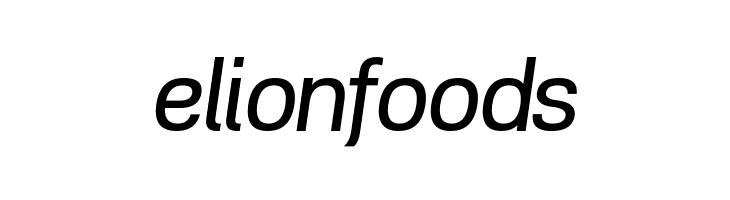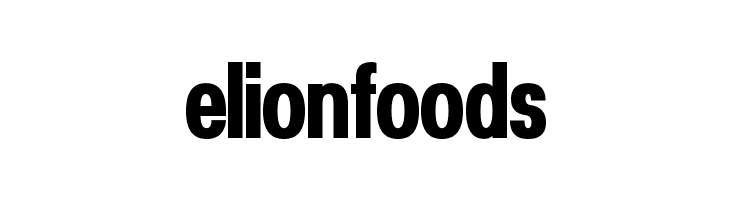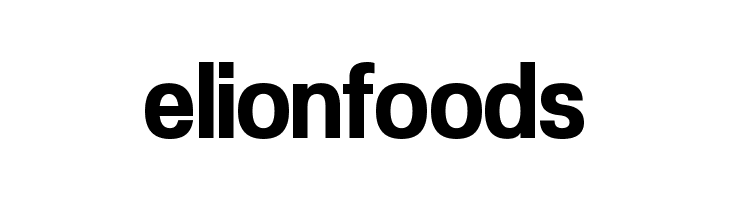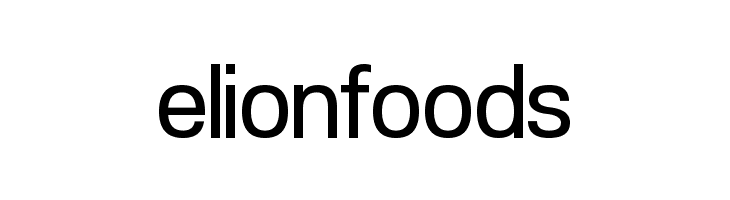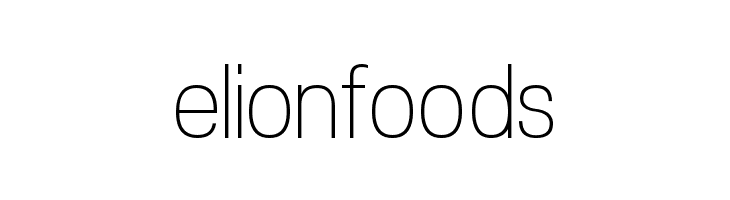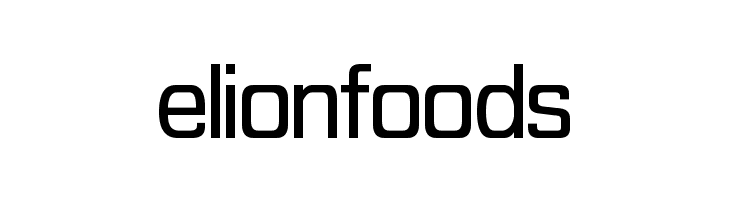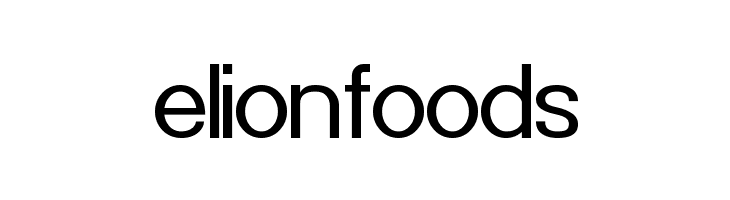
A modern, sans-serif typeface with clean lines and balanced proportions.
A modern, italic sans-serif font with clean lines and balanced proportions.
A bold, condensed sans-serif font with a modern and professional look.
A thin, italicized font with a modern and elegant style.
A modern sans-serif font with geometric shapes and uniform strokes.
A modern, thin sans-serif font with clean lines and elegant simplicity.
A modern, clean sans-serif font with uniform strokes and geometric shapes.
A modern, geometric sans-serif font with clean lines and consistent structure.
A modern sans-serif font with clean lines and geometric shapes.